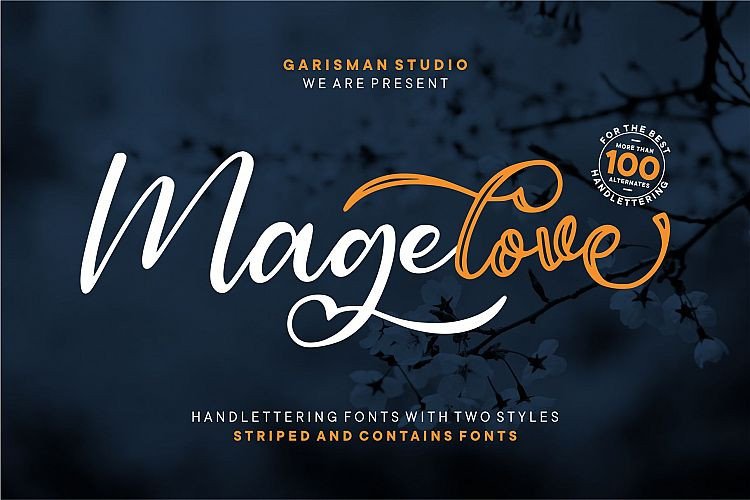
Magelove Handlettering Font
Magelove Font – Get inspired with this classy, versatile and beautiful handwritten with a modern and minimalist style. A lot of stylish alternates will give you a lot of variations for use. Magelove Calligraphy designed and shared by Garisman Studio. Magelove a handlettering font is a natural & beautyful handwritten font to get natural and natural writing. I’ts Perfect for logo, invitation, stationery, wedding designs, social media posts, advertisements, product packaging, product designs, label, photography, watermark, special events or anything